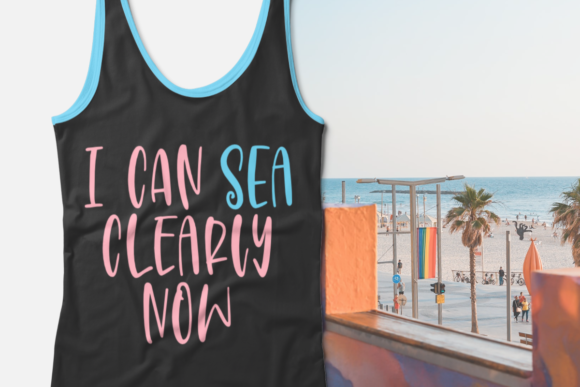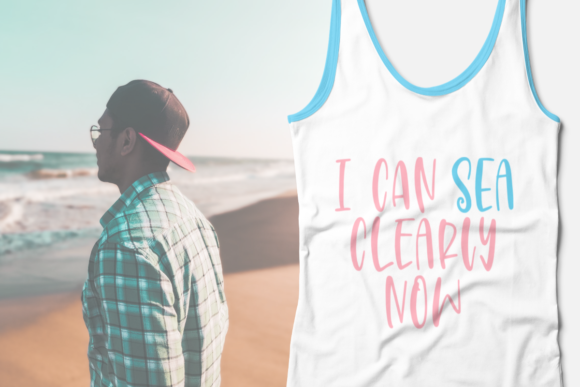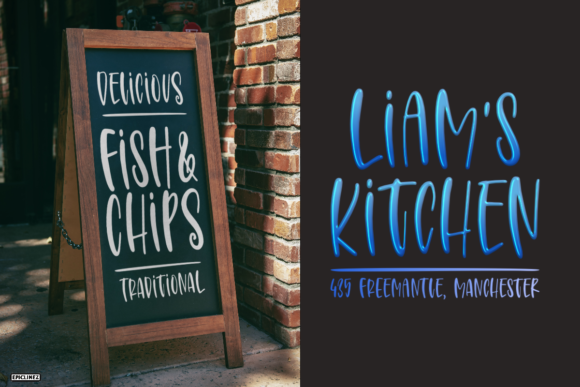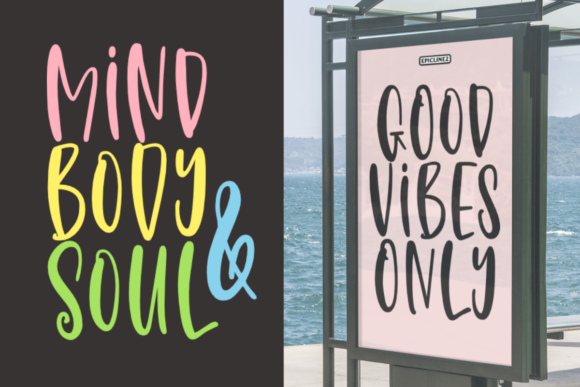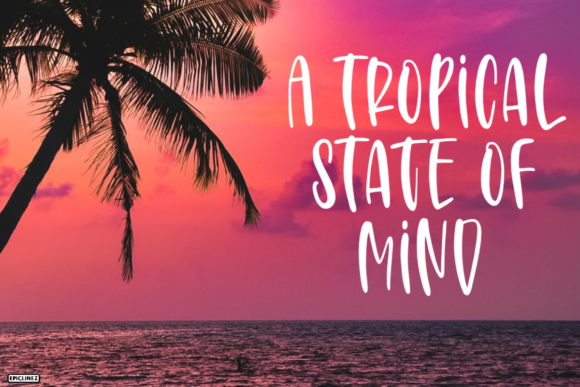
Introducing Beachside Font: The Perfect Addition to Your Design Arsenal
Are you tired of using the same old fonts in your designs? Look no further! Beachside Font is a chic, trendy, and fun handwritten font that’s sure to add a lovely touch to your creations. Whether you’re working on cartoon-related designs, children’s games, or any project that requires a playful and youthful vibe, Beachside Font is an amazing choice.
What Makes Beachside Font Special?
Beachside Font is a carefully crafted handwritten font that’s designed to bring a sense of fun and playfulness to your designs. Its unique and stylish lettering makes it perfect for a wide range of applications, from digital designs to print materials. The font’s casual and relaxed feel is reminiscent of a day at the beach, making it ideal for projects that require a carefree and laid-back vibe.
Key Features of Beachside Font
- Handwritten style: Beachside Font is a handwritten font that’s designed to look like it was written with a pen or pencil. This gives it a personal and human touch that’s perfect for designs that require a more personal feel.
- Chic and trendy: The font’s stylish and modern lettering makes it perfect for designers who want to create designs that are on-trend and fashion-forward.
- Fun and playful: Beachside Font is designed to bring a sense of fun and playfulness to your designs. Its carefree and youthful vibe makes it perfect for projects that require a lighthearted and humorous approach.
- Versatile: The font is versatile and can be used for a wide range of applications, from digital designs to print materials.
Use Cases for Beachside Font
Beachside Font is a versatile font that can be used for a wide range of projects, including:
- Cartoon-related designs: The font’s playful and fun style makes it perfect for cartoon-related designs, such as animated movies, TV shows, and comics.
- Children’s games: Beachside Font is an excellent choice for children’s games, as its carefree and youthful vibe is sure to appeal to kids.
- Branding and packaging: The font’s stylish and modern lettering makes it perfect for branding and packaging designs that require a fresh and trendy look.
- Digital designs: Beachside Font can be used for a wide range of digital designs, including social media graphics, blog posts, and website headers.
- Print materials: The font can also be used for print materials, such as flyers, brochures, and posters.
Tips for Using Beachside Font
Here are some tips for using Beachside Font in your designs:
- Pair it with other fonts: Beachside Font can be paired with other fonts to create a unique and stylish look. Try pairing it with a sans-serif font for a modern and trendy look.
- Use it in large sizes: The font’s playful and fun style is best showcased in large sizes. Use it as a header or title font to add a pop of personality to your design.
- Experiment with colors: Beachside Font looks great in a variety of colors. Experiment with different colors to find the one that best suits your design.
Beachside Font is a chic, trendy, and fun handwritten font that’s perfect for designers who want to add a playful and youthful vibe to their creations. Its unique and stylish lettering makes it perfect for a wide range of applications, from cartoon-related designs to branding and packaging. With its versatility and carefree feel, Beachside Font is sure to become a staple in your design arsenal.